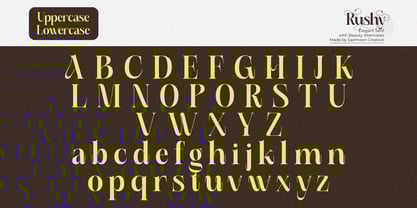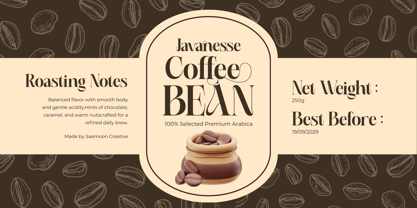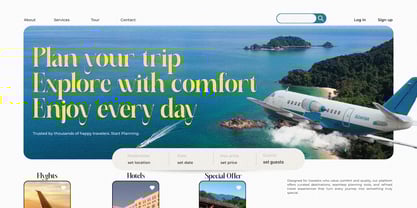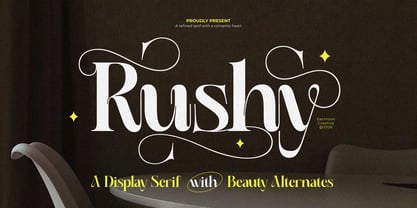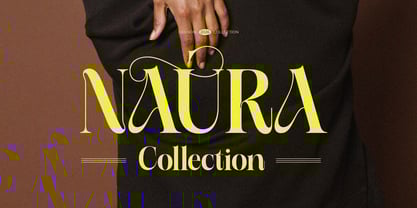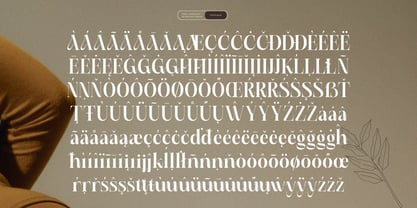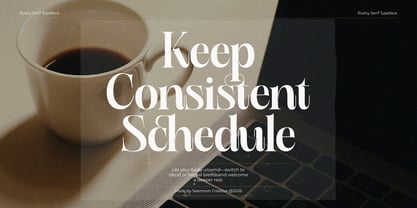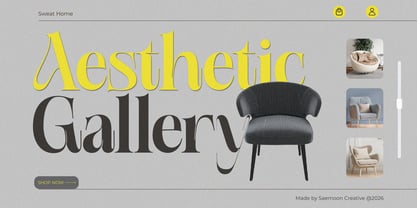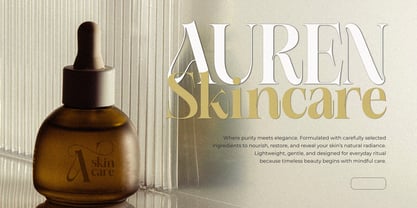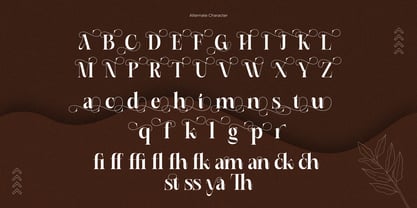
Rushy
by Saemoon Creative
The Rushy Font Family was designed by Sapto Susilo and published by Saemoon Creative. Rushy contains 2 styles and family package options.
Rushy is a refined display serif with a romantic heart. Designed to make a strong visual statement, it blends classic serif structure with expressive swashes and elegant beauty alternates that bring sophistication to every composition. The high-contrast strokes and graceful curves create a luxurious, timeless impression, while the decorative alternates add a unique and artistic touch. Rushy is perfect for headlines, logos, branding projects, wedding invitations, editorial layouts, packaging, and fashion-related designs that need a distinctive and premium look. Carefully crafted to shine in large sizes, Rushy delivers both elegance and personality in every letterform. Features: Uppercase & Lowercase Numerals & Punctuation Stylistic Alternates Multilingual Support PUA Encoded If you're looking for a serif that combines refinement, romance, and expressive alternates, Rushy is ready to elevate your next design project.
Designers: Sapto Susilo
Publisher: Saemoon Creative
Foundry: Saemoon Creative
Design Owner: Saemoon Creative